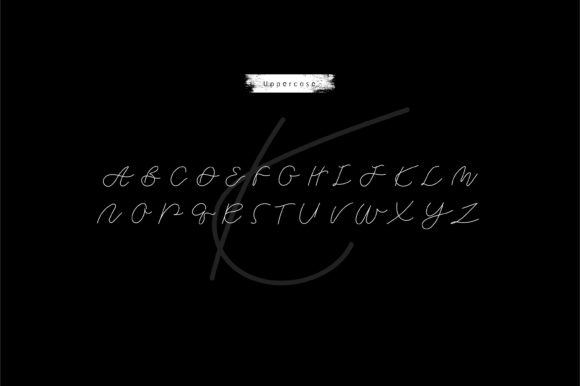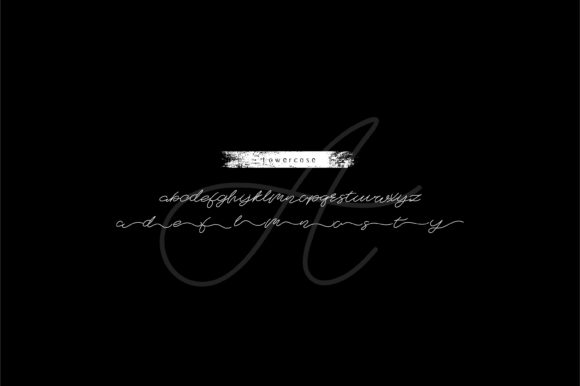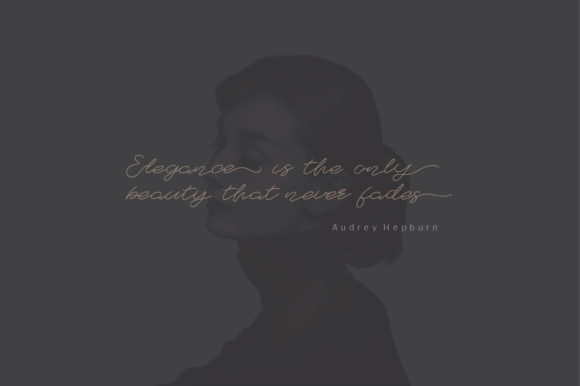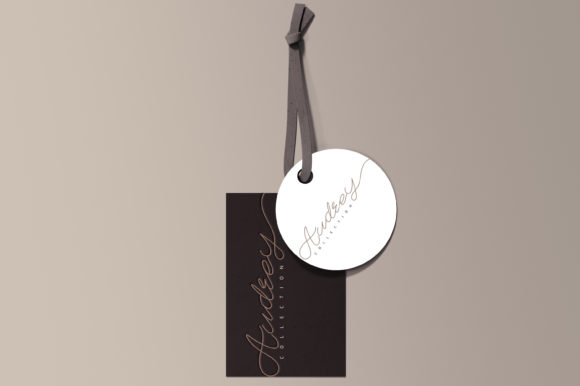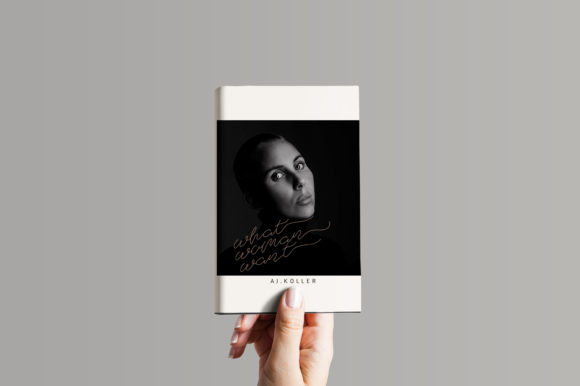
Introduction to Kade Font
Have you ever been stuck in a creative rut, struggling to find the perfect font to bring your project to life? I know I have. It’s like searching for a needle in a haystack, but the needle is a beautiful, handwritten font that sets your design apart. That’s when I discovered Kade Font, and it’s been a game-changer for me and many other designers.
Kade Font is more than just a pretty face – it’s a high-quality design resource that’s perfect for a wide range of creative projects. With its clean, stylish, and beautiful handwritten style, it’s a versatile font that can add a touch of elegance to any design. Whether you’re working on a logo, a poster, or a website, Kade Font is a valuable addition to your design toolkit.
One of the things that sets Kade Font apart is its transparent background, making it easy to work with and customize to fit your needs. And the best part? It’s available for free download, making it accessible to designers of all levels. Whether you’re a seasoned pro or just starting out, Kade Font is a valuable resource that’s sure to take your designs to the next level.
Key Features of Kade Font
- High-quality design: Kade Font is a premium design resource that offers a high-quality aesthetic for any creative project.
- Transparent background: Kade Font features a transparent background, allowing for easy customization and integration into any design.
- High-resolution design: Kade Font is designed at a high resolution, ensuring that it looks sharp and clear on high-resolution displays.
- Unique characteristics: The font features a unique and modern design, making it an excellent choice for designers looking to add a touch of creativity to their projects.
- Perfect for digital design: Kade Font is ideal for digital design projects, including web design, graphic design, and more.
Honest Review: Kade Font
I recently stumbled upon the Kade Font, a free download that’s quickly become a go-to resource for my creative projects. The first thing I noticed was the high quality of the font itself – it’s crisp, clean, and perfect for any design where readability is key. ✨ One of the standout features is the transparent background, which makes it incredibly easy to work with and combine with other design elements.
- Works well in a variety of creative projects, from logos and branding to digital signage and wayfinding.
- High-quality design that’s perfect for showcasing in your portfolio or using in client work.
- Transparent background makes it easy to combine with other design elements and textures.
Overall, I’m really impressed with the Kade Font. It’s a solid addition to any designer’s toolkit, and the transparent background is a game-changer. While it may not be perfect for every situation, it’s a great resource to have in your back pocket for those times when you need a high-quality font that’s easy to work with.
Kade Font
The Kade Font is a high-quality design resource perfect for creative projects. It features a transparent background, making it versatile and easy to use. You can download it for free to enhance your designs.
Tips for Getting the Most Out of Kade Font
To get the most out of the Kade Font, use it for headings and titles to add a touch of elegance to your design. You can also experiment with different font sizes and styles to create a unique look.
The Kade Font is perfect for creating invitations, business cards, and other marketing materials. It’s also great for designing websites, social media graphics, and other digital content.
Yes, the Kade Font is designed to meet high standards for print quality. It features a high-quality design, precise metrics, and a transparent background, making it perfect for use in brochures, business cards, and other print materials.